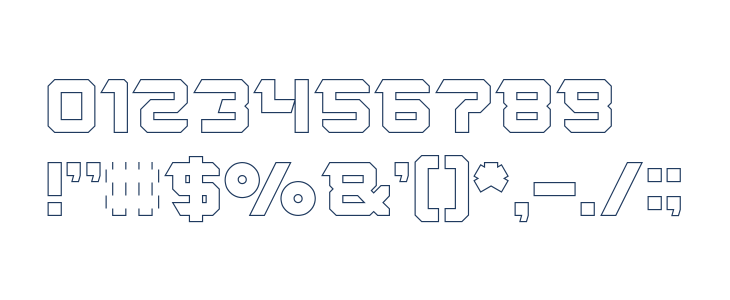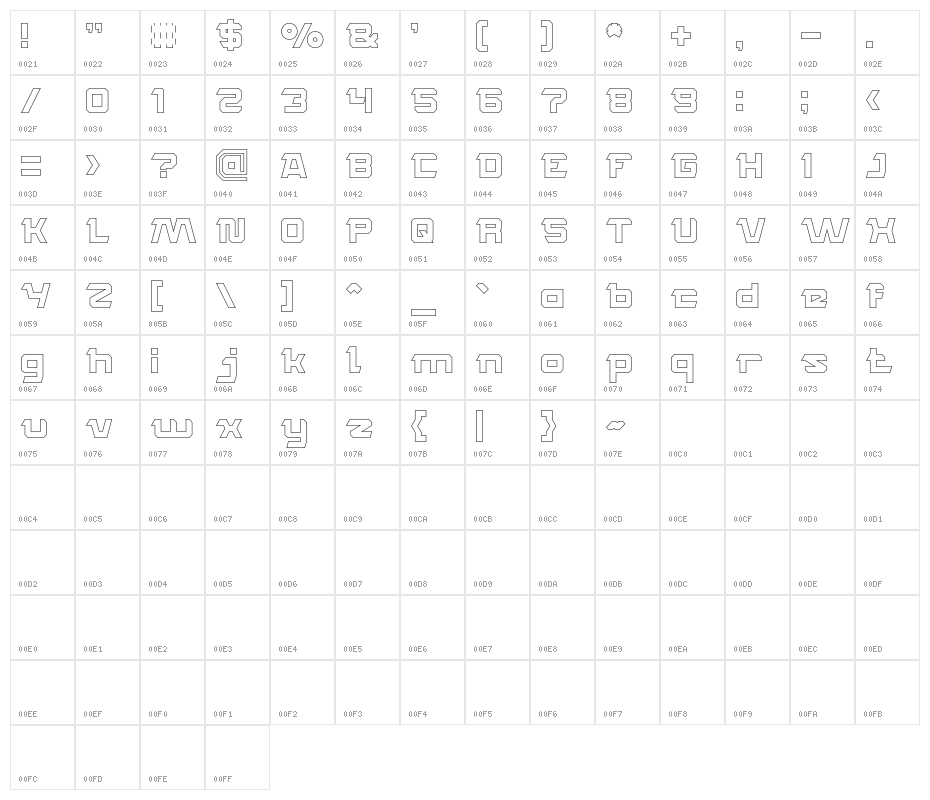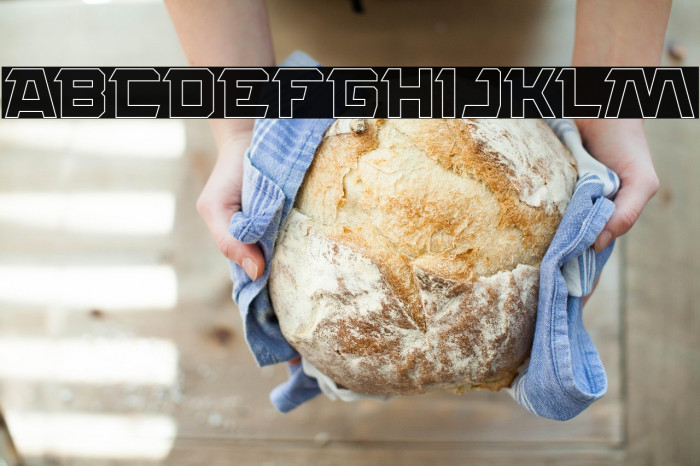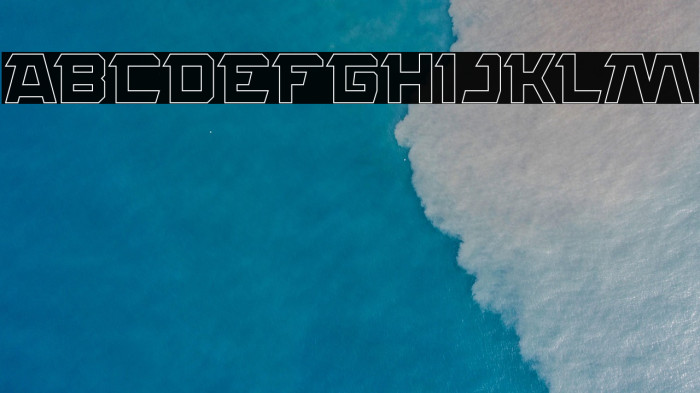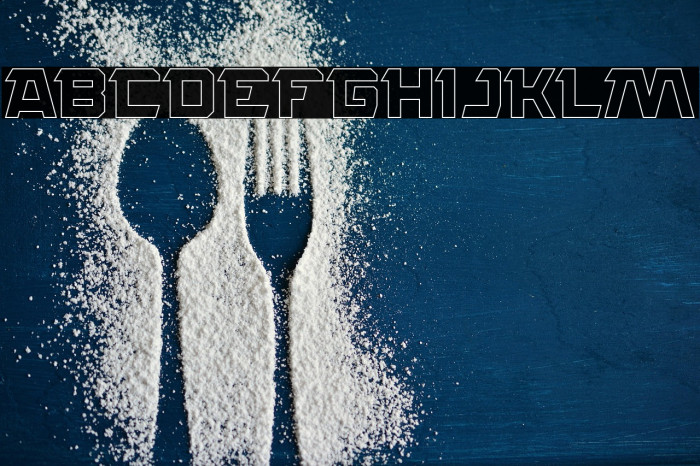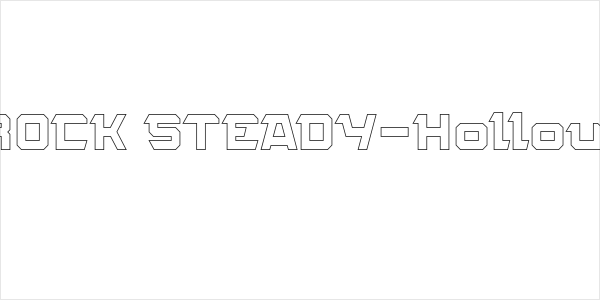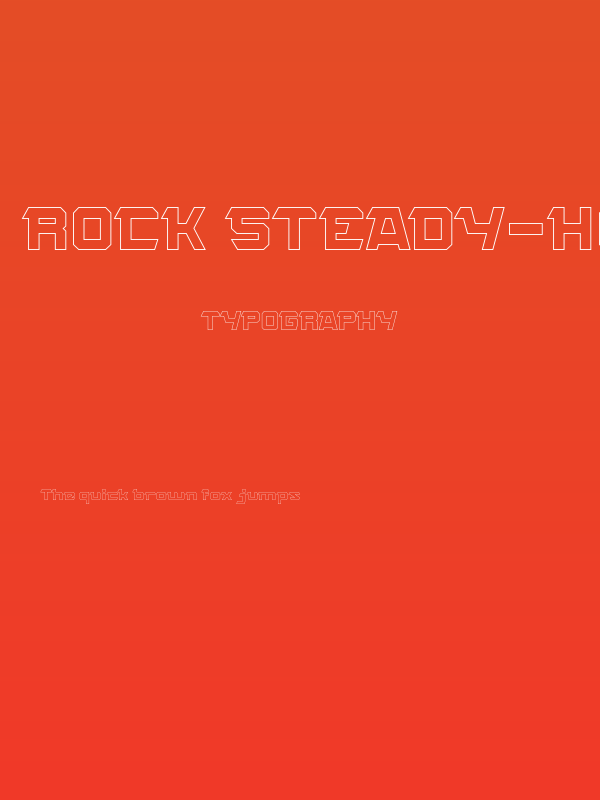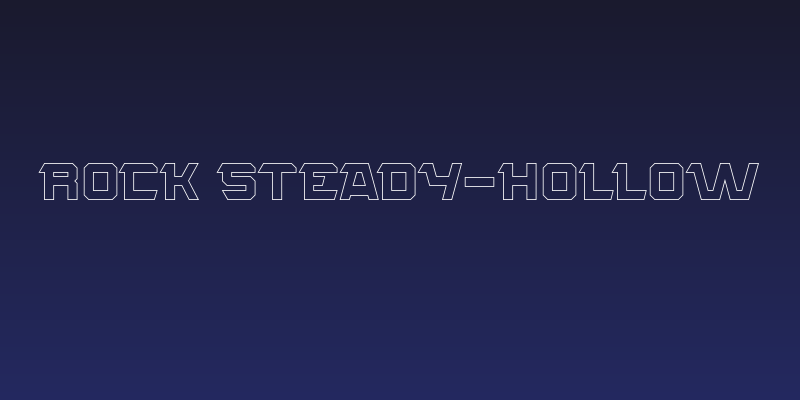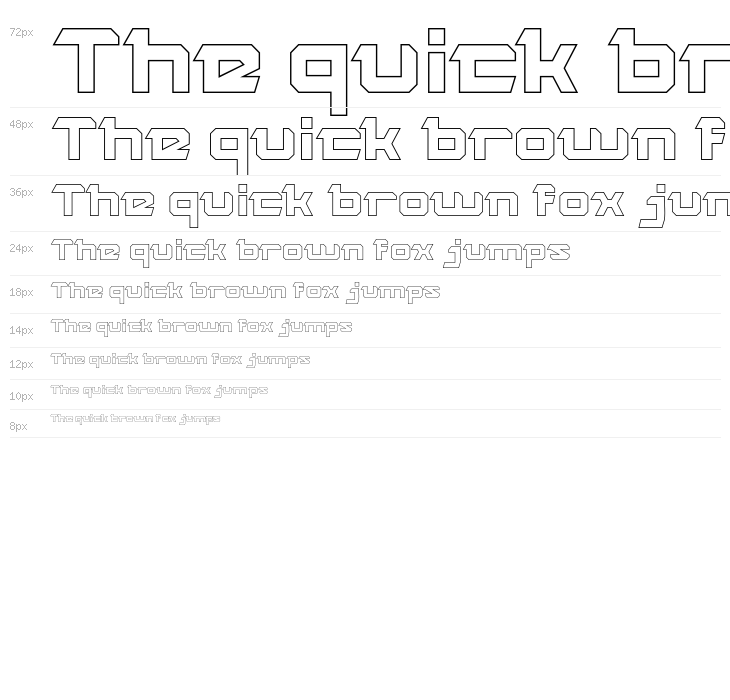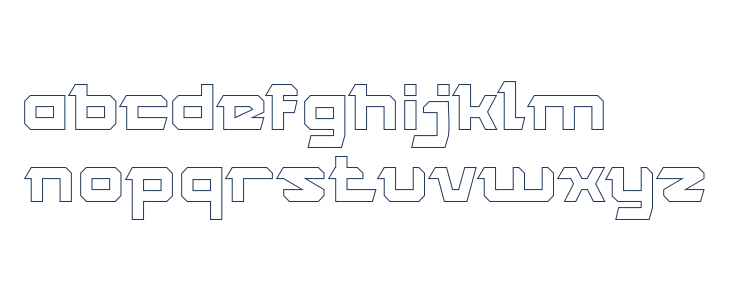
ROCK STEADY-Hollow Font
ROCK STEADY-Hollow Description
This font features a bold, geometric design with hollow interiors, giving it a modern and futuristic appearance. The characters are constructed with sharp angles and straight lines, creating a sense of precision and structure. The uppercase and lowercase letters maintain a consistent style, with the lowercase being slightly smaller in scale. Numbers and special characters are designed to match the overall aesthetic, ensuring uniformity across all glyphs. The hollow nature of the font adds a unique dimension, making it stand out in various design contexts.
| Proposed Projects | Ideal for technology-themed projects, sci-fi posters, video game titles, and modern branding. |